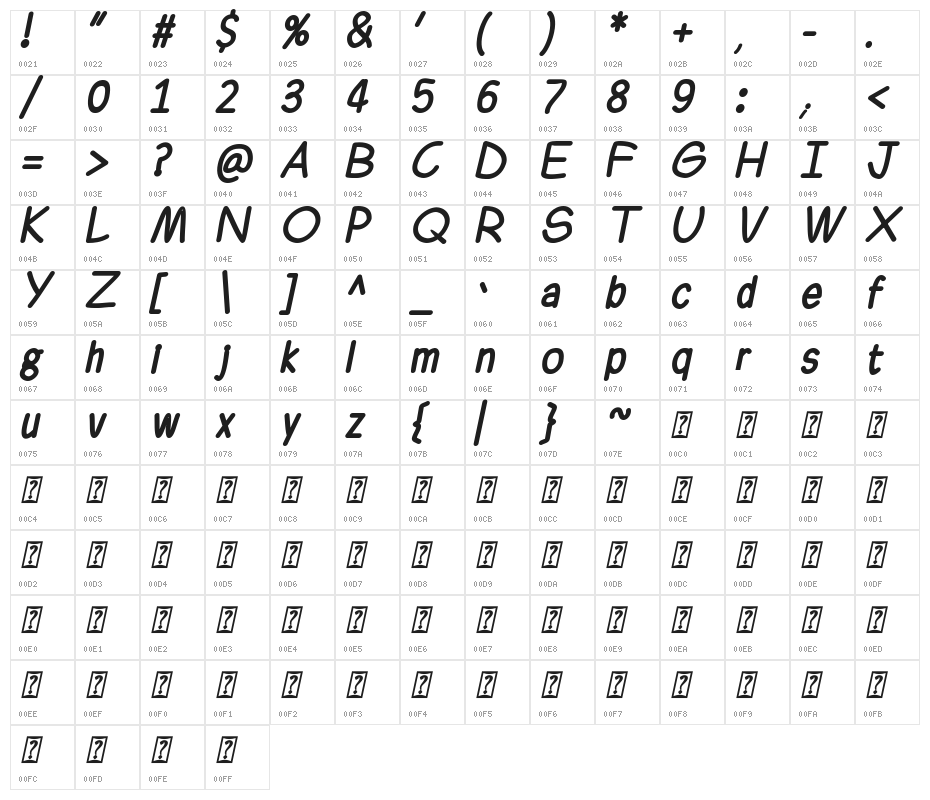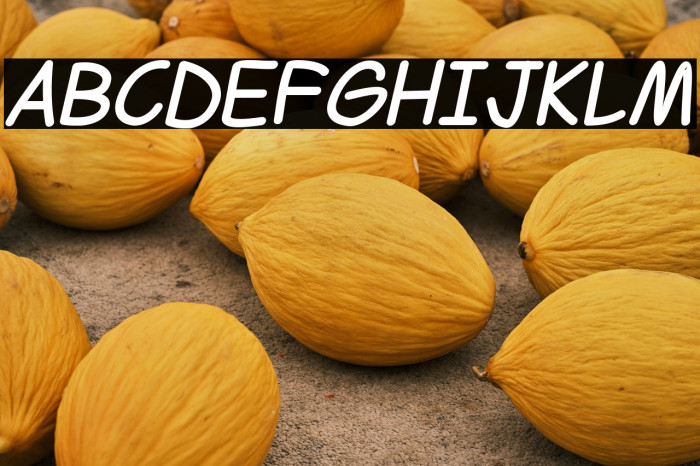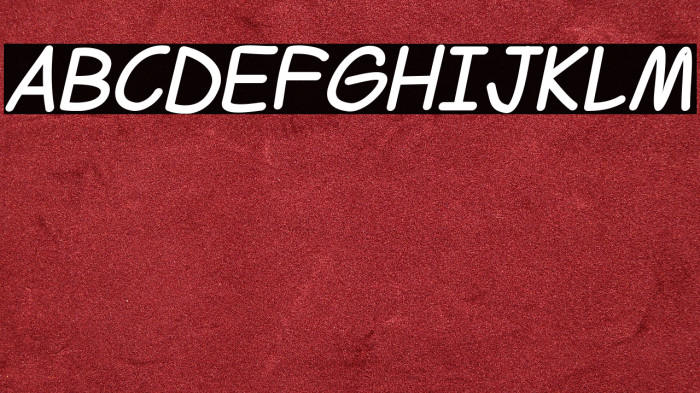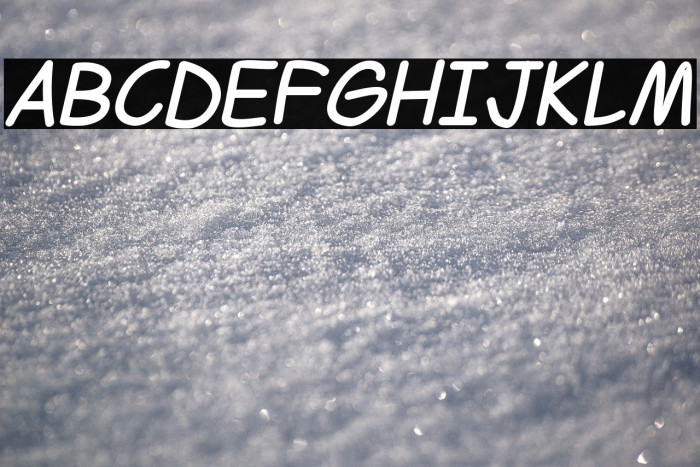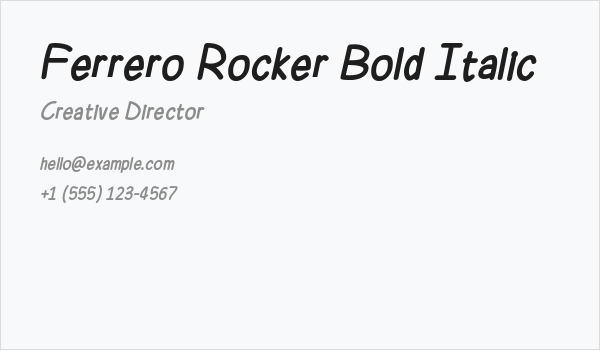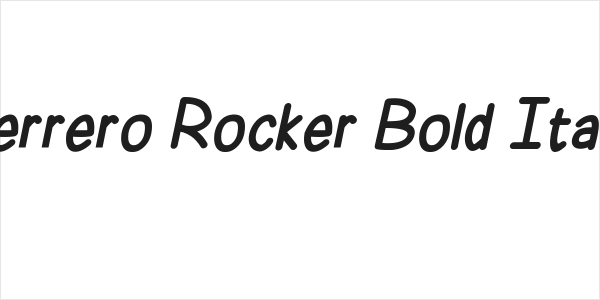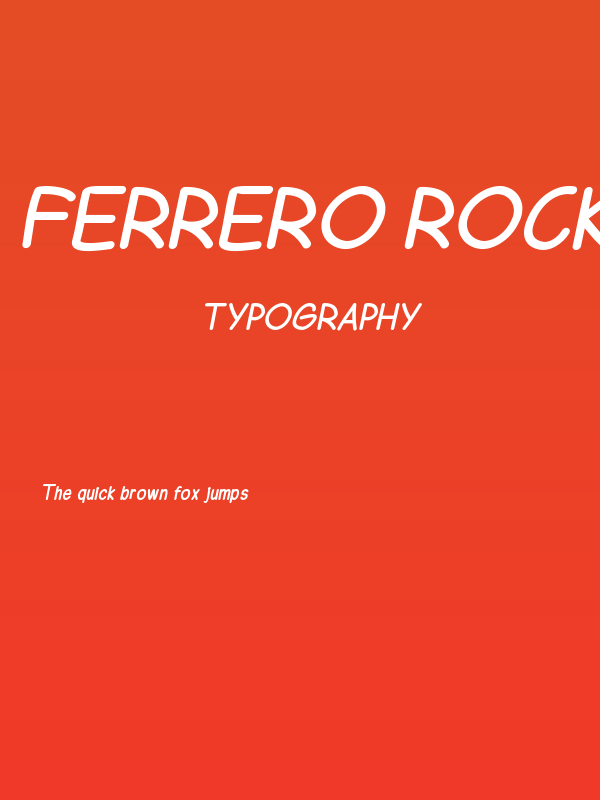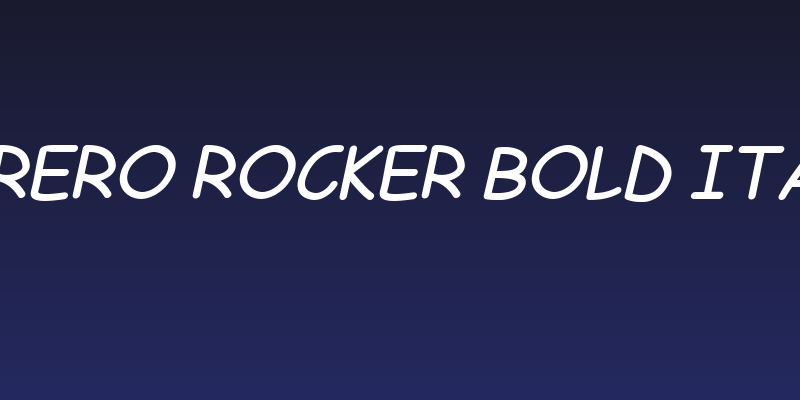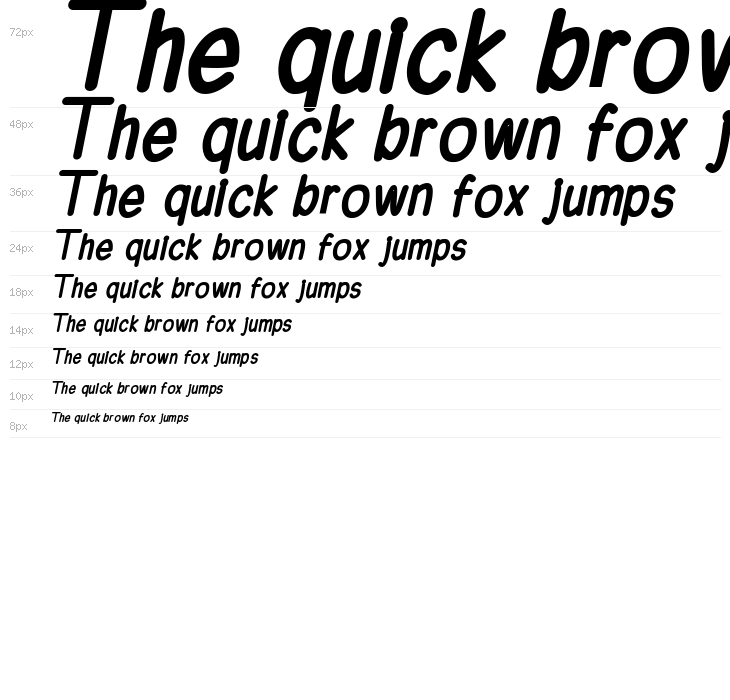
Ferrero Rocker Bold Italic Font
Ferrero Rocker Bold Italic Description
This font features a bold and italic style with a smooth, rounded appearance. The characters have a consistent thickness, giving them a strong presence while maintaining a friendly and approachable look. The italic slant adds a dynamic feel, making it suitable for conveying movement or emphasis. The rounded edges soften the overall appearance, making it versatile for various design contexts. The numerals and special characters are designed to match the letterforms, ensuring a cohesive look across all text elements.